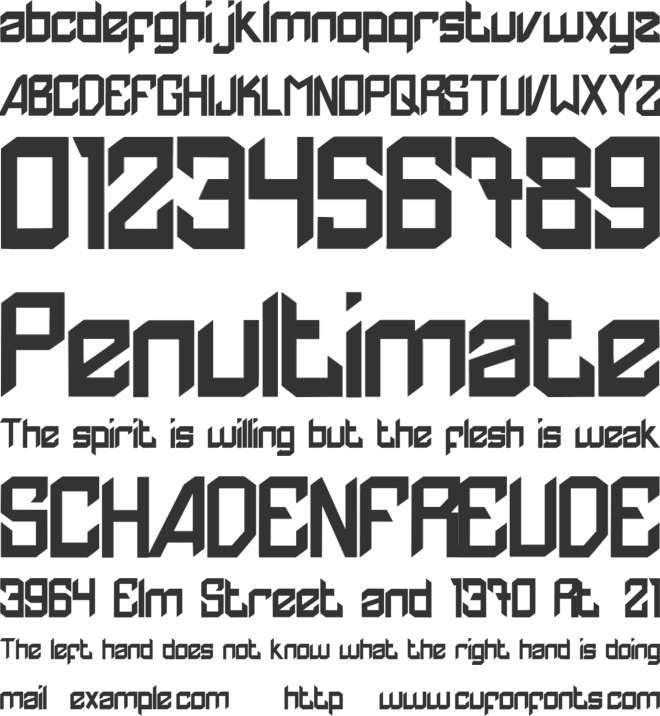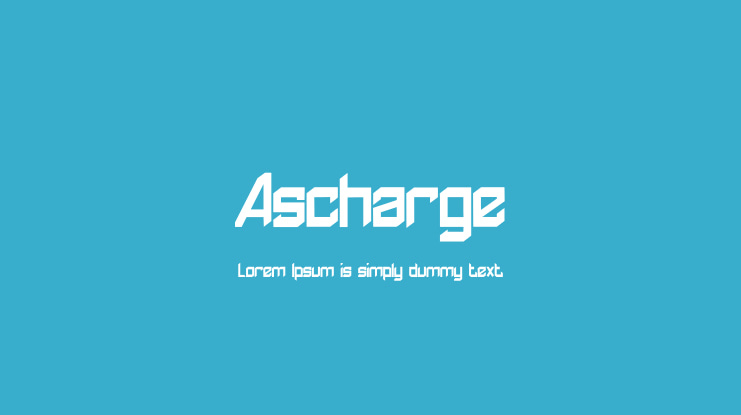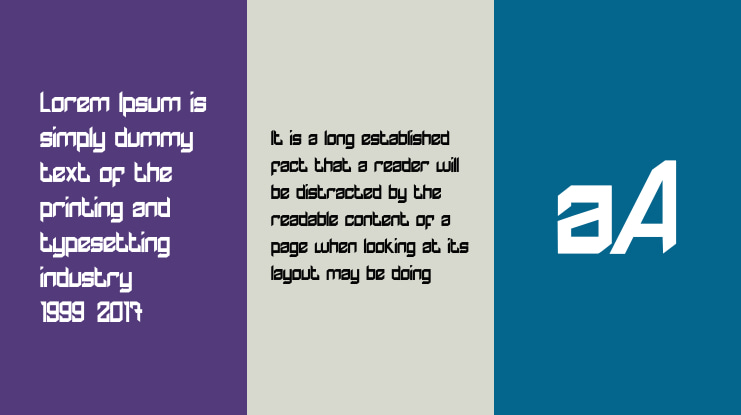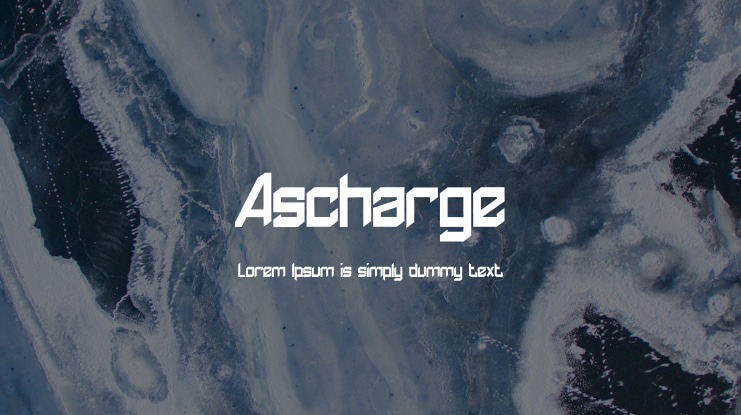
Ascharge Font
Introducing Ascharge, a modern typeface with a futuristic, high-tech atmosphere. This typeface design will elevate your projects, making them more powerful and inspiring.
Ascharge is perfect for themes related to technology, digital formats, and space galaxy concepts. It is also ideal for movies, documentaries, films, logos, posters, games, book covers, headlines, titles, and many other projects. Incorporate this font into your creative ideas and watch them truly stand out!